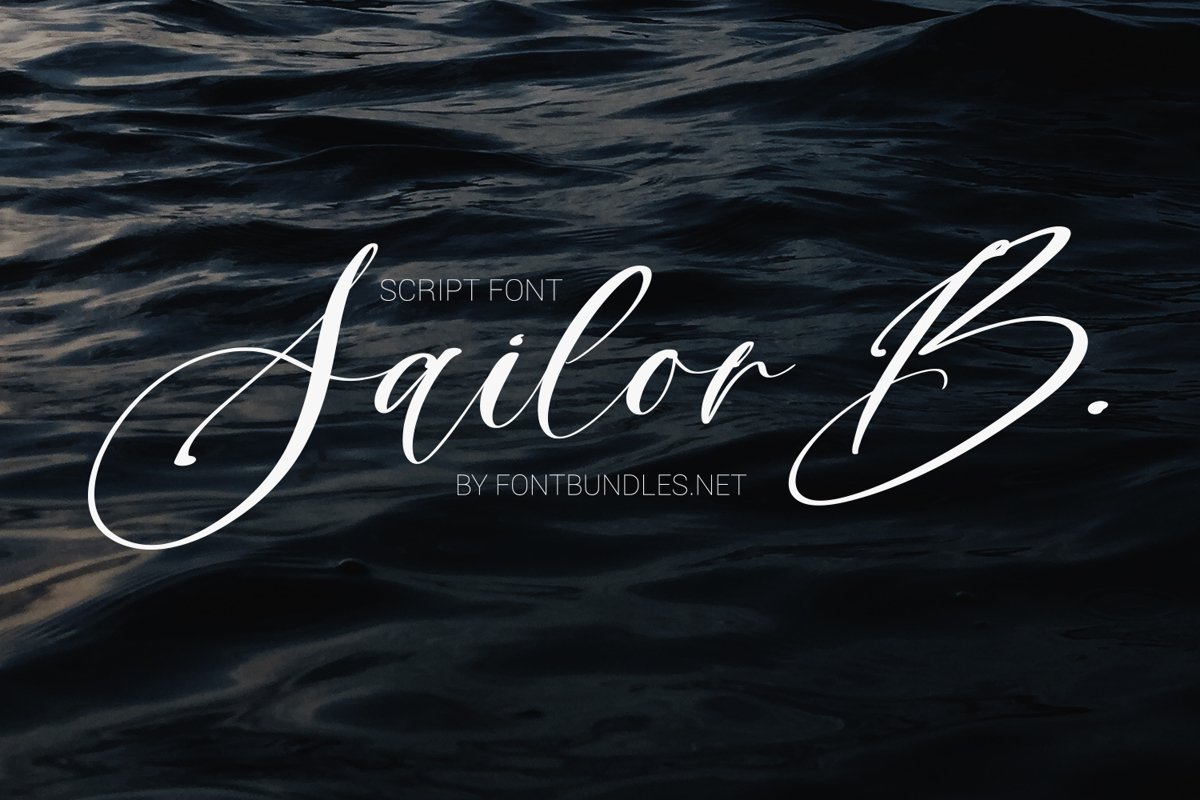
Sailor B Script font - it's a modern calligraphy script fontSailor B Script font.otf - standart and alternate uppercase, lowercase, numbers, punctuation
SailorB